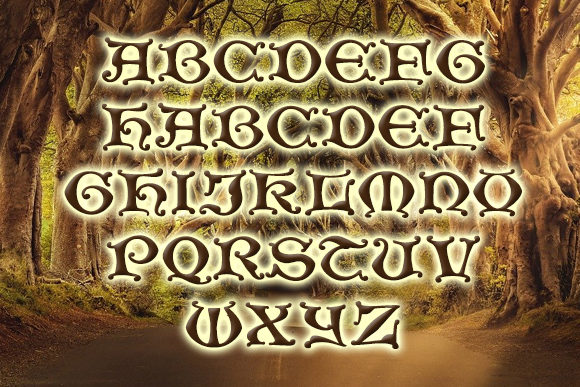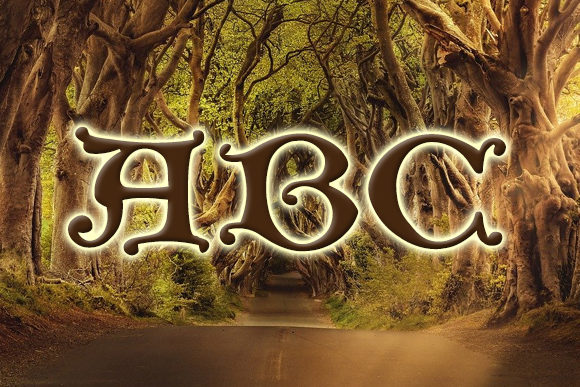
Dublin Font: Elevate Your Designs with a Touch of Gothic Elegance
Dublin is an awesome decorative font that has been making waves in the design community with its unique gothic style. This versatile font is perfect for adding a touch of elegance and sophistication to various design projects, from posters and flyers to web prints and more. In this article, we’ll dive into the world of Dublin Font, exploring its features, uses, and benefits for designers and crafters.
What is Dublin Font?
Dublin Font is a decorative font that boasts a stunning gothic style, characterized by intricate details and ornate lettering. Its distinctive look makes it an excellent choice for designers looking to add a touch of drama and flair to their work. Whether you’re creating a poster, flyer, or website, Dublin Font is sure to make your design stand out from the crowd.
Key Features of Dublin Font
- Gothic Style: Dublin Font features a beautiful gothic style that adds a touch of elegance and sophistication to any design.
- Decorative Lettering: The font boasts intricate details and ornate lettering, making it perfect for designs that require a high level of visual appeal.
- Versatility: Dublin Font can be used for a wide range of design projects, from posters and flyers to web prints and more.
- Easy to Read: Despite its decorative nature, Dublin Font is easy to read, making it perfect for designs that require a clear and concise message.
Uses of Dublin Font
Dublin Font is an incredibly versatile font that can be used for a wide range of design projects. Here are some of the most popular uses of this amazing font:
- Posters: Add a touch of drama and flair to your posters with Dublin Font. Its gothic style makes it perfect for movie posters, event posters, and more.
- Flyers: Create eye-catching flyers with Dublin Font. Its decorative lettering and intricate details make it perfect for advertising and promotional materials.
- Web Prints: Use Dublin Font to add a touch of elegance to your web prints. Its clear and concise lettering makes it perfect for website headers, banners, and more.
- Logos and Branding: Dublin Font can be used to create stunning logos and branding materials. Its unique style makes it perfect for businesses looking to stand out from the crowd.
Benefits of Using Dublin Font
There are many benefits to using Dublin Font in your design projects. Here are some of the most significant advantages:
- Unique Style: Dublin Font offers a unique style that sets it apart from other fonts. Its gothic style adds a touch of elegance and sophistication to any design.
- Versatility: Dublin Font can be used for a wide range of design projects, making it a valuable addition to any designer’s toolkit.
- Easy to Read: Despite its decorative nature, Dublin Font is easy to read, making it perfect for designs that require a clear and concise message.
- Time-Saving: Dublin Font can save you time and effort in your design projects. Its pre-designed letters and characters eliminate the need to create custom lettering from scratch.
Tips for Using Dublin Font
Here are some tips for using Dublin Font in your design projects:
- Use it Sparingly: Dublin Font is a decorative font that should be used sparingly. Use it for headings, titles, and other design elements that require a touch of elegance.
- Pair it with Other Fonts: Dublin Font can be paired with other fonts to create a stunning contrast. Try pairing it with a sans-serif font for a modern look.
- Experiment with Colors: Dublin Font looks great in a variety of colors. Experiment with different colors and gradients to find the perfect look for your design.